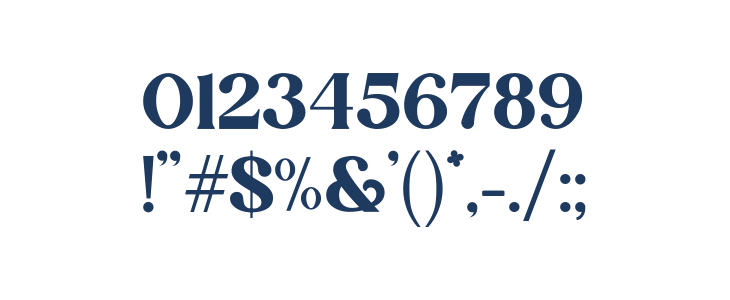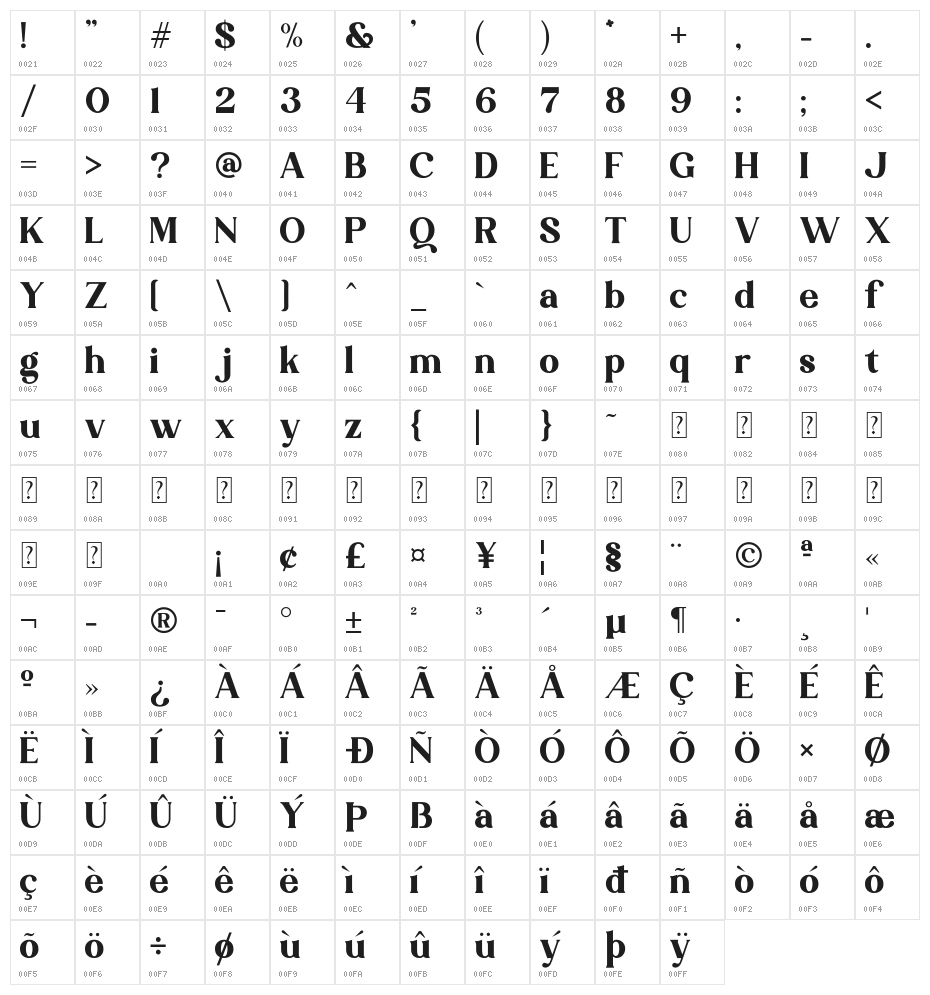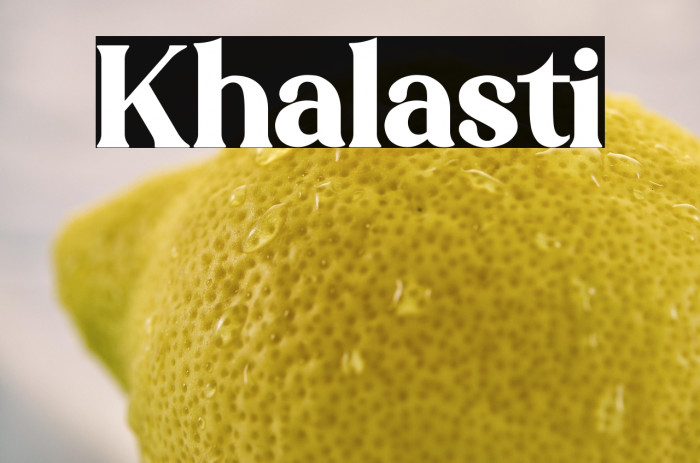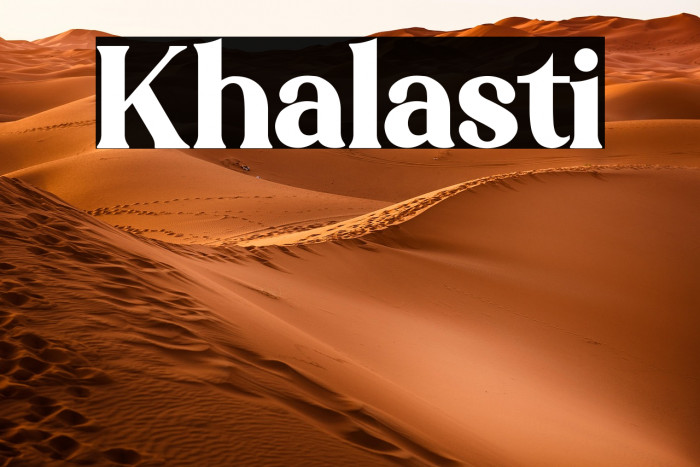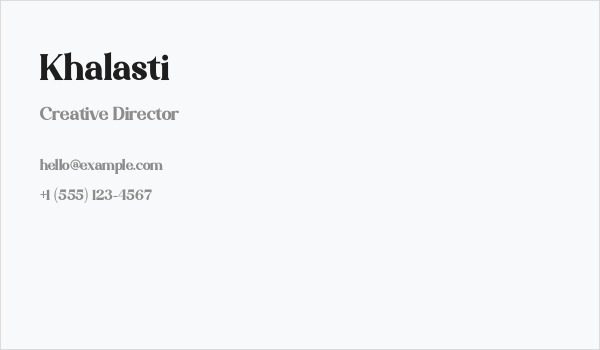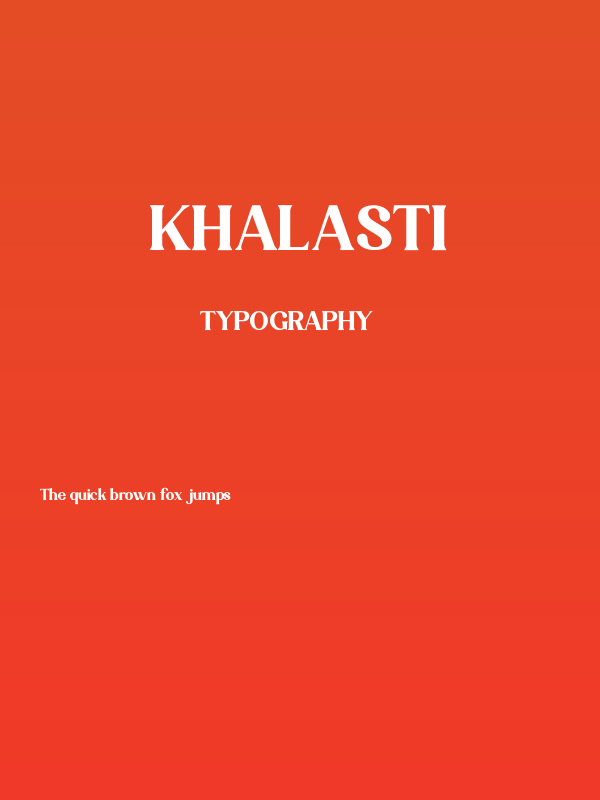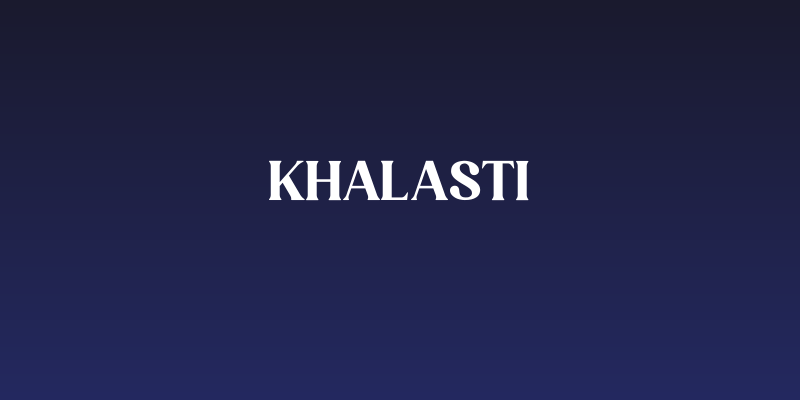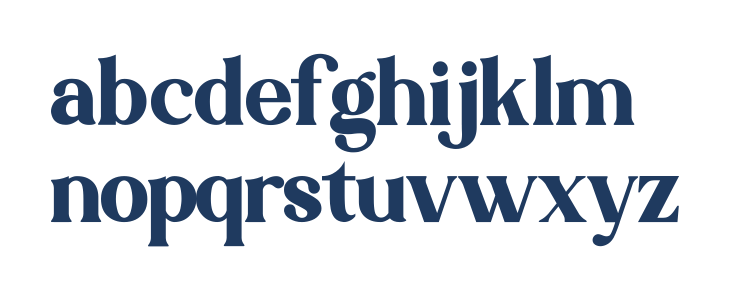
Khalasti Font
Khalasti Description
This font features a bold and striking serif design, characterized by its thick strokes and high contrast between thick and thin lines. The serifs are pronounced and add a touch of elegance and tradition to the overall appearance. The uppercase letters are robust and commanding, while the lowercase letters maintain a consistent style with slightly rounded edges, providing a harmonious balance. The numerals are clear and legible, making them suitable for various applications. Special characters are well-defined, enhancing the font's versatility.
| Proposed Projects | Ideal for editorial design, book covers, branding, and headlines where a classic yet impactful look is desired. |